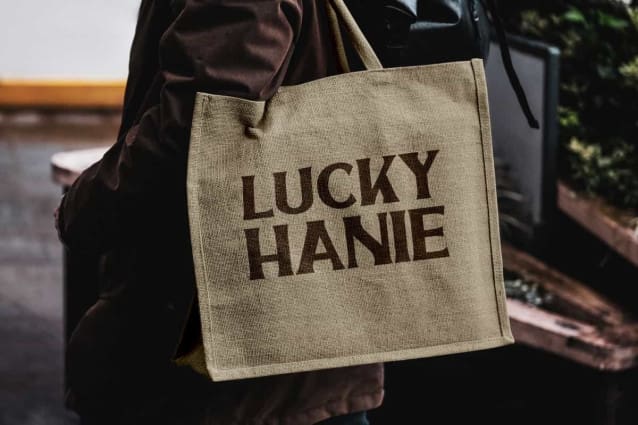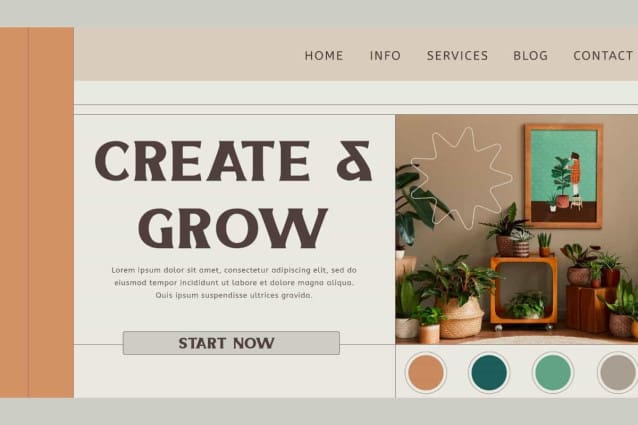
Lucky Hanie Font
Lucky Hanie font is a retro display serif font that has an elegant, refined style and is perfect for creating any design. This font is suitable for brand logo, custom design, invitation, magazine cover, menu, poster, product packaging, screen printing, signage, social media post, stationery, sticker, website, and more!
Lucky Hanie font includes full set for Uppercase and Lowercase Basic Characters, Numbers, Punctuation and Symbols. This font presents an authentic and beautiful style, creating a perfect font suitable for advertising, bakery, beauty product, cafe, crafts, event or wedding organizer, fashion, photography, restaurant, spa, travel agency, etc.